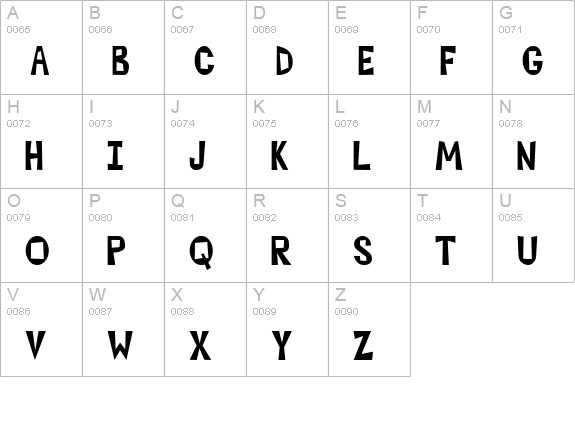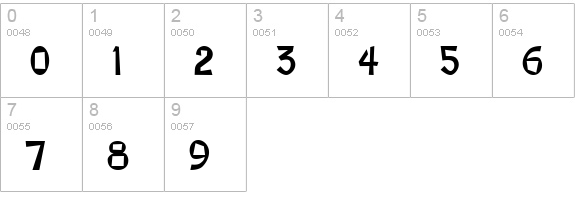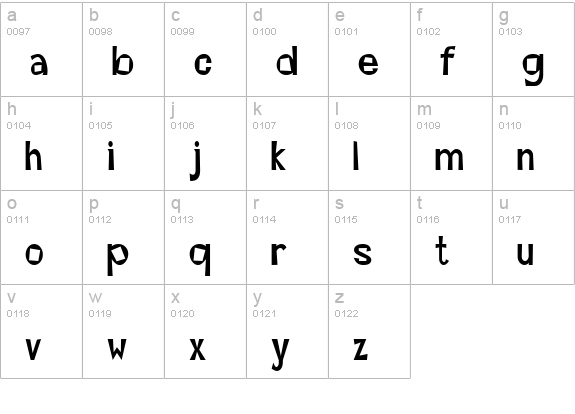
MagooCondensed Normal Font Details
MagooCondensed Normal is the standard, neutral variant in the MagooCondensed typeface family \xE2\x80\x94 well suited to general body text, paragraphs, and standard typographic work.
MagooCondensed Normal is a modern and sleek font that exudes elegance and sophistication. With its clean lines and balanced proportions, this typeface is perfect for a wide range of design projects, from branding and advertising to web design and print materials. The MagooCondensed Normal font offers a unique combination of versatility and readability, making it suitable for both headlines and body text. Its condensed shape allows for more text to be displayed in a limited space without sacrificing legibility. This font features a comprehensive set of characters, including uppercase and lowercase letters, numerals, punctuation marks, and special characters. The uniform weight and consistent spacing ensure a smooth and harmonious look across all characters. What sets MagooCondensed Normal apart is that it is available for free download at FontsMarket.com. This means that designers and enthusiasts alike can easily access and incorporate this font into their projects without any cost. Whether you are a professional designer or an aspiring artist, MagooCondensed Normal is a valuable addition to your font library. Download MagooCondensed Normal today and unleash your creativity with this versatile and stylish font. With its modern aesthetic and freely available nature, MagooCondensed Normal is sure to elevate your designs and make a lasting impression.